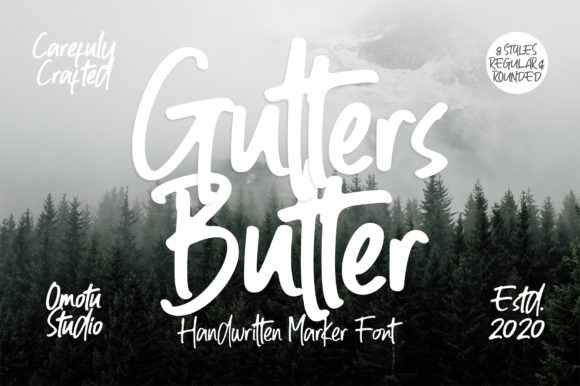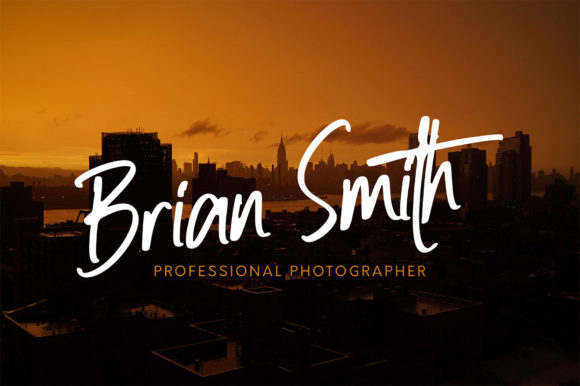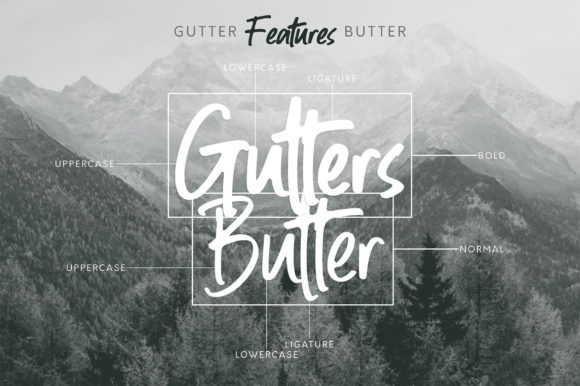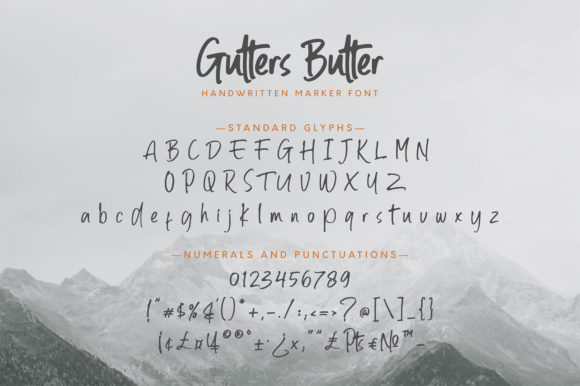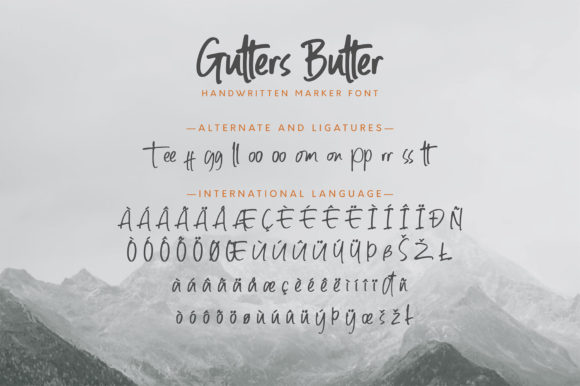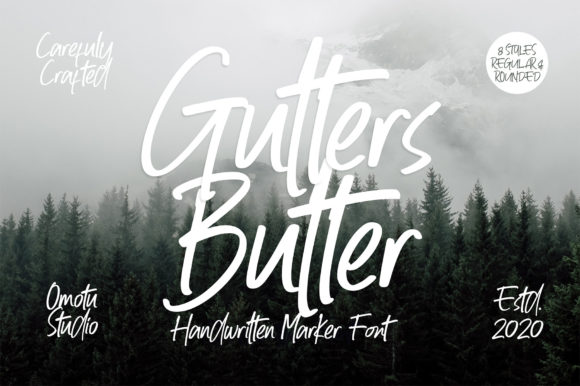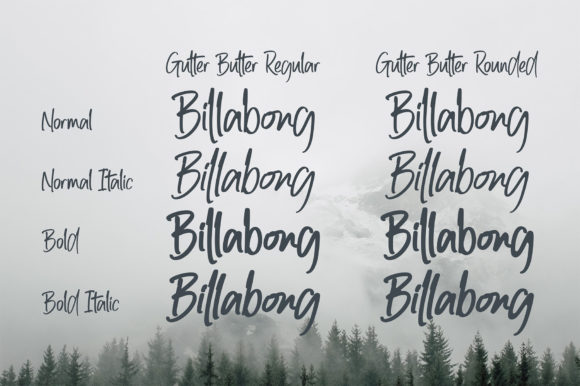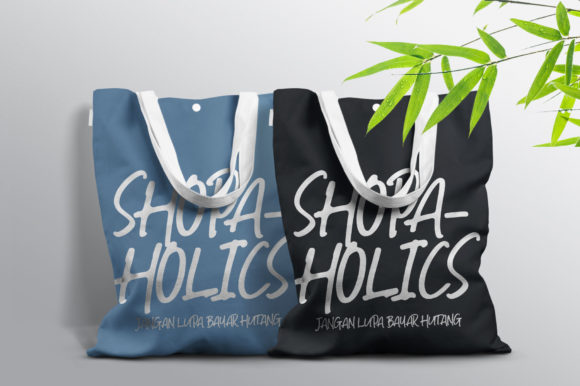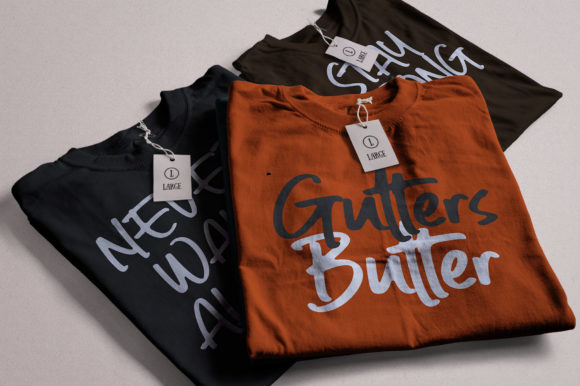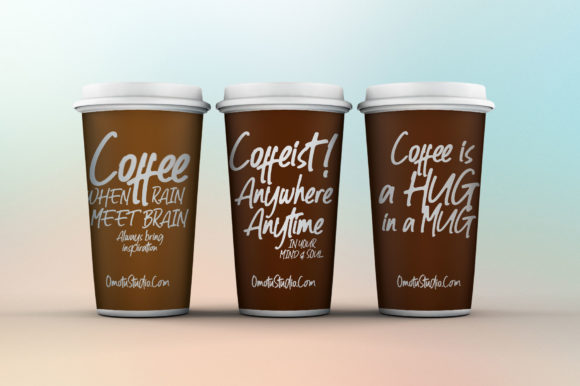
Gutters Butter Font
About Gutters Butter Font
Gutters Butter is a trendy and bold brushed handwritten font. It is suitable for creating any branding, product packaging, invitation, quote, t-shirt, label, poster, logo that you wish to develop.